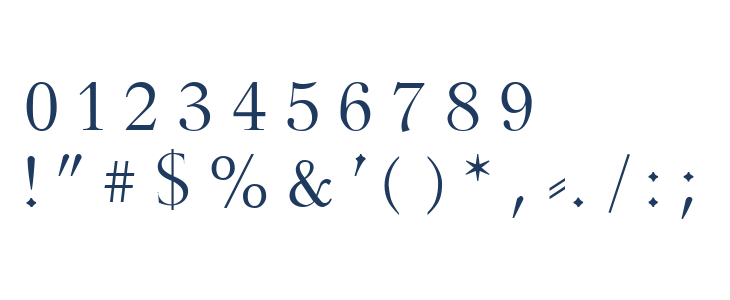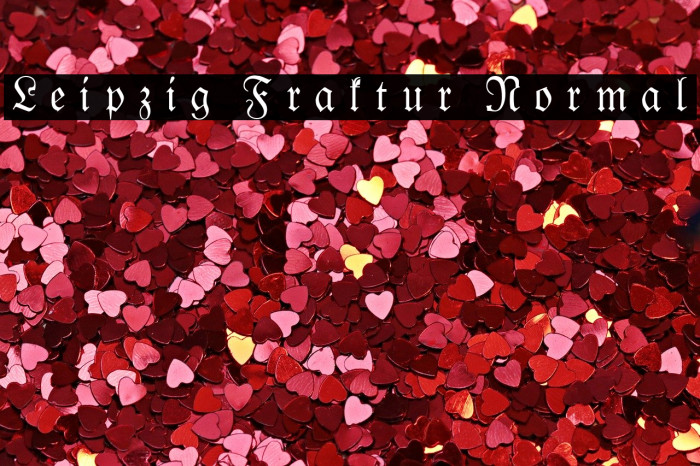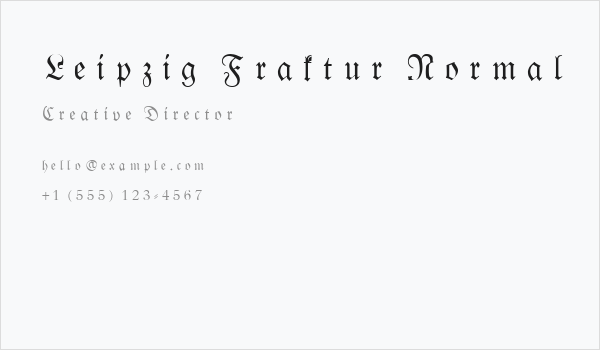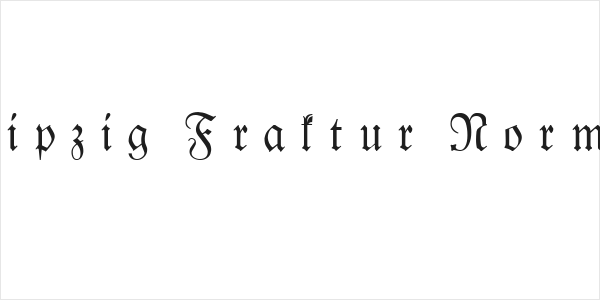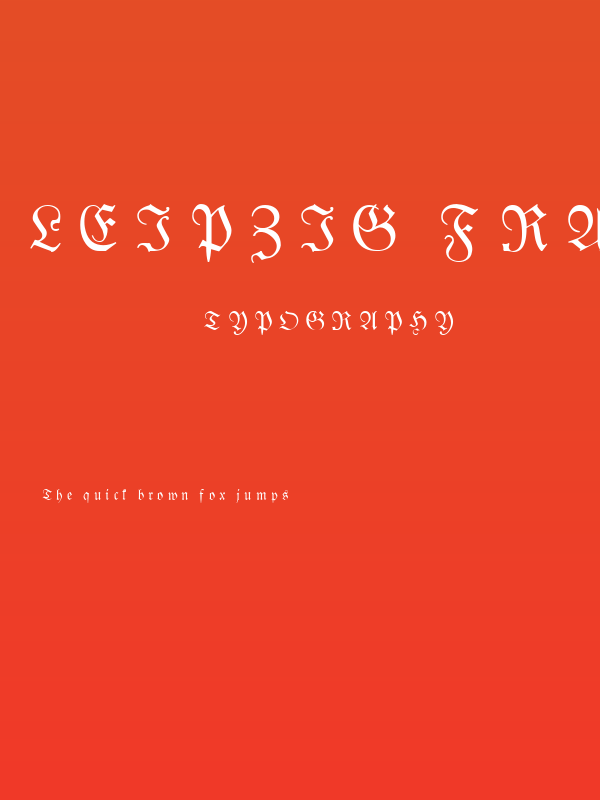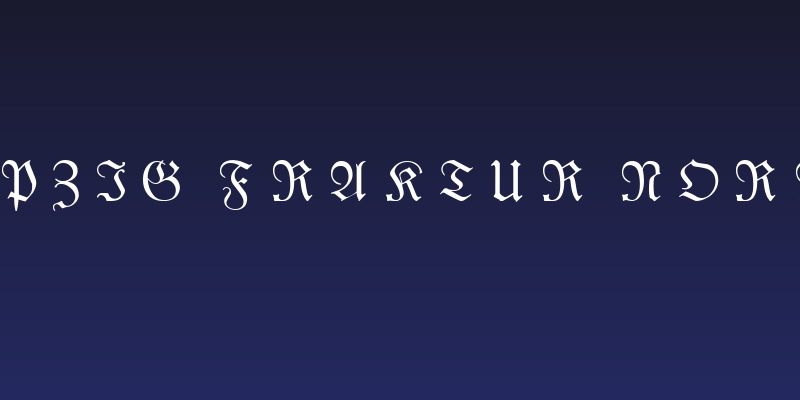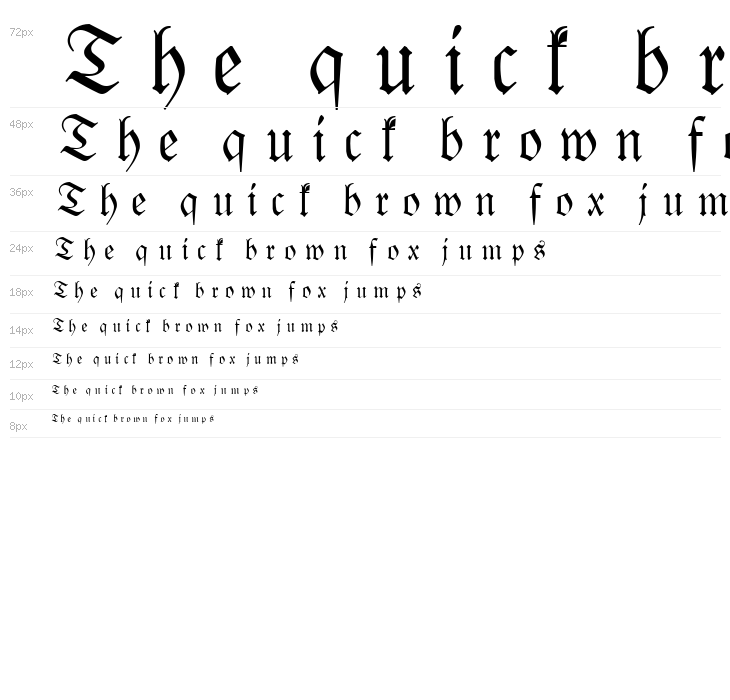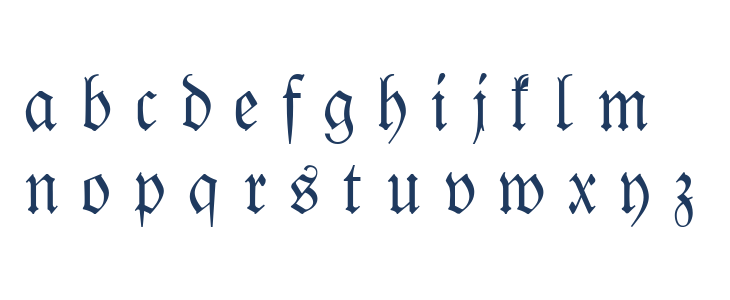
Leipzig Fraktur Normal Font
Leipzig Fraktur Normal Description
This font exhibits a classic Blackletter style, characterized by its intricate and ornate letterforms. The uppercase letters are bold and dramatic, with sharp angles and elaborate flourishes that give them a distinct medieval appearance. The lowercase letters maintain the same decorative quality, with a consistent stroke width that enhances readability while preserving the traditional aesthetic. The numerals are more modern in style, providing a clear contrast to the ornate letters, and the special characters are designed to complement the overall theme. This font is ideal for projects that require a historical or formal touch, such as certificates, invitations, or branding for luxury products.
| Use Case | Headlines, Decorative text, Branding |
| Proposed Projects | Ideal for historical documents, formal invitations, luxury branding, and decorative headings. |